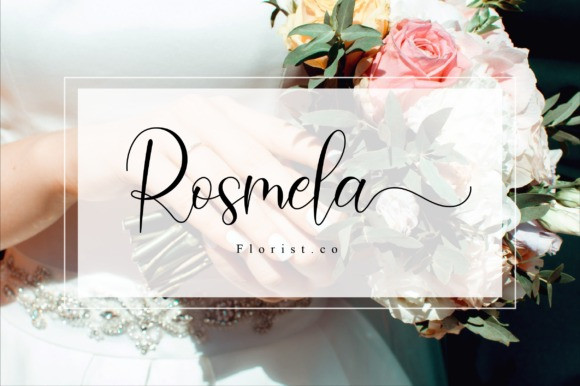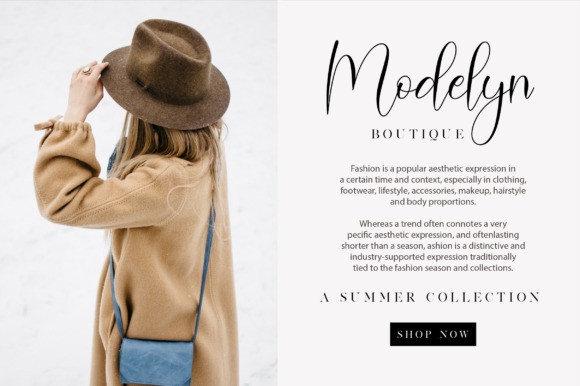
Amadea Script Font
Amadea Script Font is modern calligraphy script font, it’s looks more assertive and attractive and will make all your work look more impressive! It’s designed and shared by NissaStudio. It’s a playful and cute calligraphy font. The dynamically rounded characters make it the perfect font for creating stunning crafts.
Amadea comes packed with PUA encoded swashes, which will allow you to add a decorative touch within seconds. Get inspired by its authentic feel and use it to create gorgeous wedding invitations, beautiful stationary art, eye-catching social media posts, and cute greeting cards.